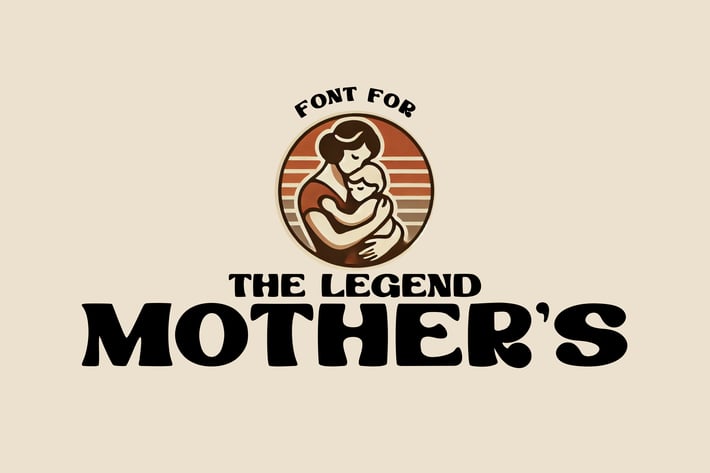
The Legend Mother's Font
The Legend Mothers is an elegant and artistic script calligraphy font, blending classic charm with a modern touch. Its smooth strokes and intricate details make it perfect for various creative projects such as branding, wedding invitations, product packaging, and social media designs. This luxurious handwritten-style font adds an exclusive and aesthetic appeal to any design.